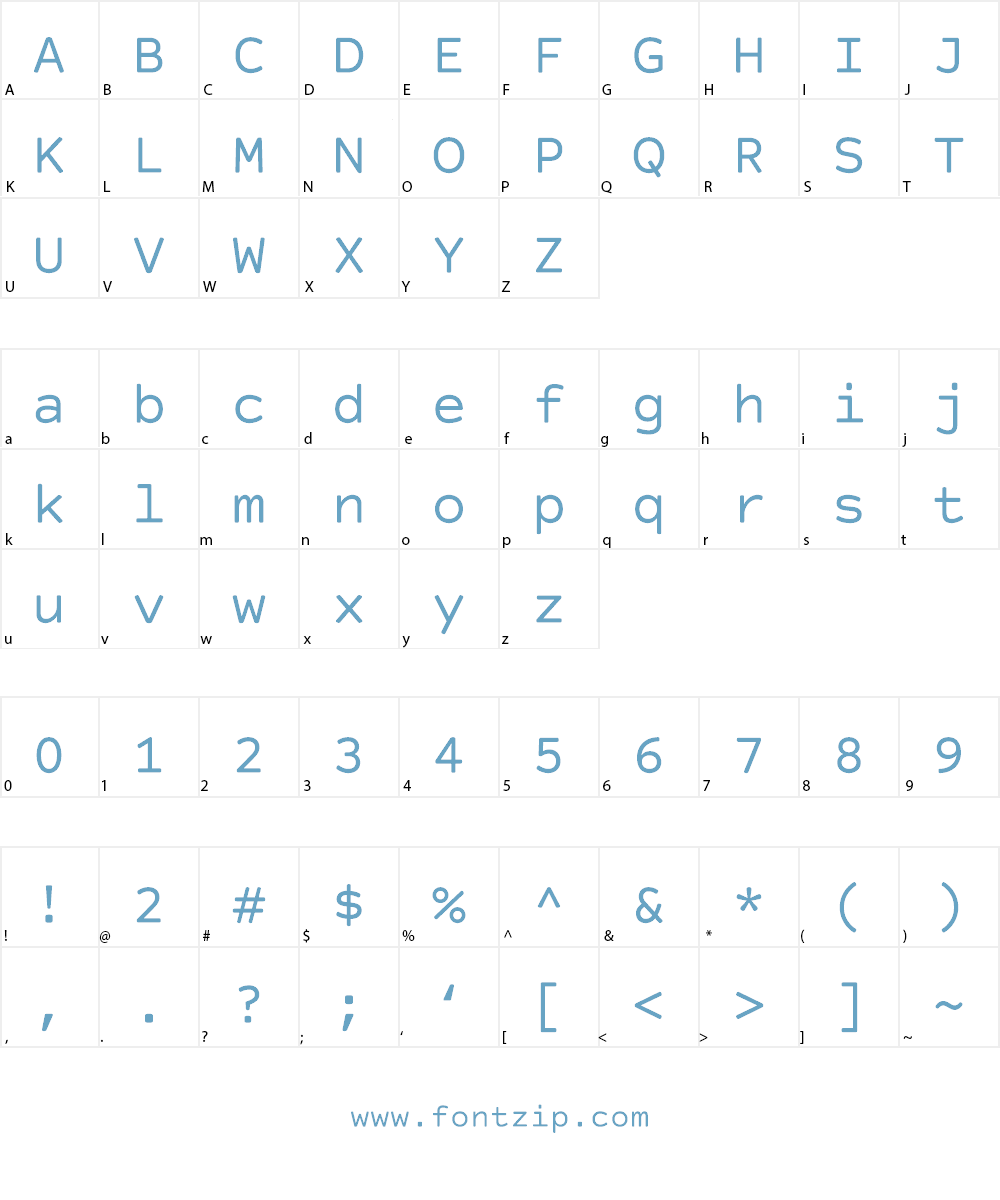
Lotuscoder is a Japanese extension of Courier Prime Sans. It borrows the first 2 weights of the Japanese rounded Gothic font Genjuu Gothic. Available in Regular and Bold weights (but no italics).